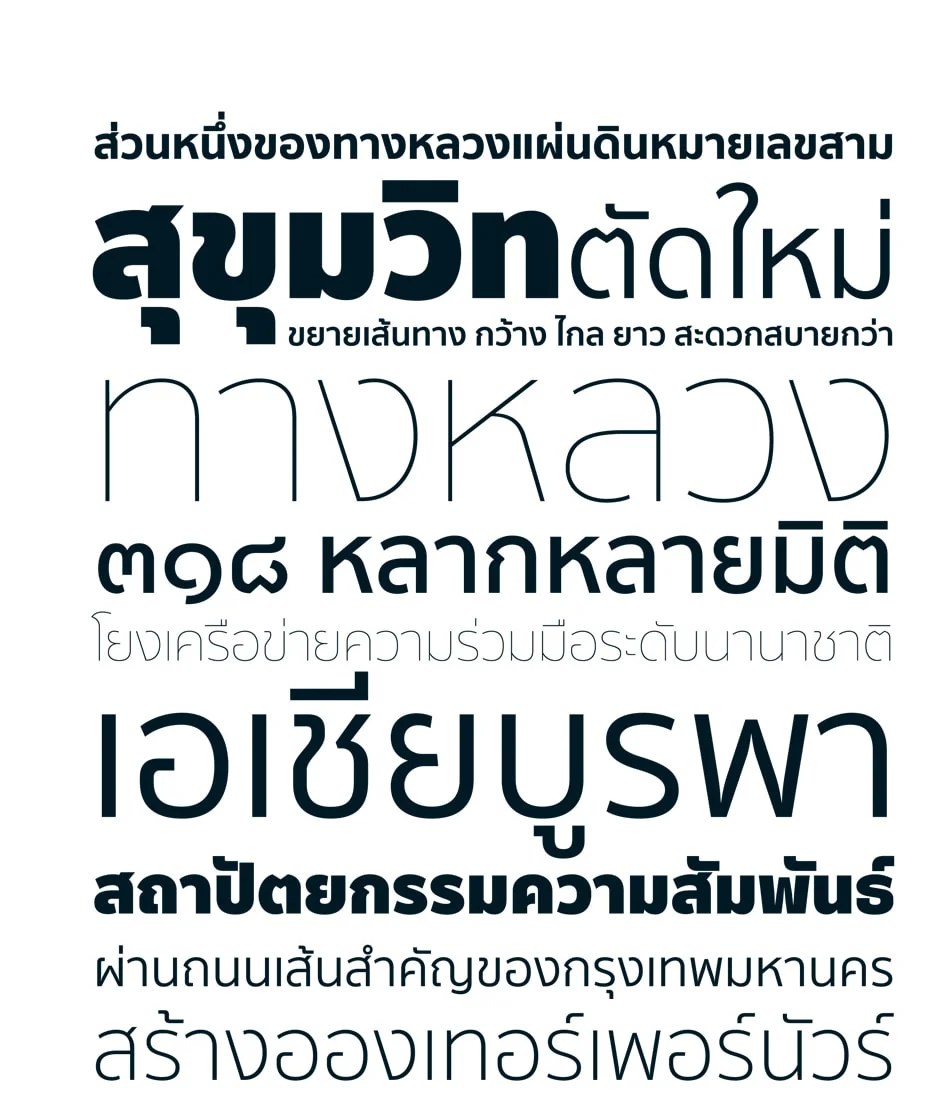
Font Thai Photoshop Free Download. Truetypewriter polyglott by sergey beatoff a.k.a. The letters look like a real, slightly illegible handwriting.
All fonts suitable as to make a design choice for. Aloe is a modern slab serif font designed by alessio laiso. Aksaramatee bold download view count :
If you are not sure which font to begin with, you can choose one amongst the best rated fonts, else, do explore the top rated thai fonts as well. ฟอนต์ซีพีพี ซีรีฟ (cpp serif) crafty font อยากทำฟอนต์มีฐาน เลยต้องทำฟอนต์ให้เป็นทางการและเพิ่มฐาน หวังว่าทุกคนจะชอบนะคะ Truetypewriter polyglott by sergey beatoff a.k.a.
Aloe Is A Modern Slab Serif Font Designed By Alessio Laiso.
Among Free Fonts For Designers, This One Is Surely The Most Unusual.